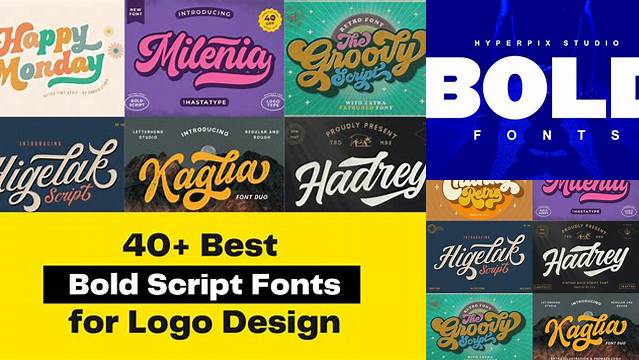
Bold Fonts: Best Choices For Logo Design
Choosing the right font is crucial for creating a logo that stands out and effectively represents your brand. When it comes to making a strong visual impact, bold fonts are often the go-to choice. They exude confidence, grab attention, and ensure readability across various platforms. But with so many bold fonts out there, how do you pick the best one for your logo? Well, let's dive into the world of bold fonts and explore some top contenders for logo design.
1. Understanding the Power of Bold Fonts in Logo Design
Hey guys! Have you ever wondered why some logos just pop while others fade into the background? A big part of it comes down to font choice, especially when we're talking about bold fonts. Bold fonts aren't just about making text thicker; they're about making a statement. They communicate strength, confidence, and clarity, which are all essential qualities for a successful logo. Think about some of the most iconic logos out there β many of them utilize bold fonts to create a lasting impression. From tech giants to established corporations, bold fonts have proven their effectiveness in capturing attention and conveying brand identity. So, before we jump into specific fonts, let's understand why bold fonts are so powerful in the world of logo design. A well-chosen bold font can instantly elevate your logo, making it more memorable and impactful. It's not just about the thickness of the lines; it's about the overall presence and authority that a bold font brings to your visual identity. A bold font ensures that your logo remains legible and noticeable, whether itβs displayed on a large billboard or a small mobile screen. This is crucial for brand recognition and consistency across all platforms. Moreover, bold fonts often convey a sense of stability and reliability, which can be particularly important for businesses looking to build trust with their audience. The visual weight of a bold font anchors the logo, giving it a solid and dependable feel. In essence, bold fonts are a powerful tool in your design arsenal, capable of transforming a simple wordmark into a compelling brand symbol. So, when you're brainstorming logo ideas, don't underestimate the impact of a bold font. It might just be the secret ingredient to making your logo truly stand out.
2. Top Bold Sans-Serif Fonts for Modern Logos
When it comes to modern logos, sans-serif bold fonts are a classic choice. They're clean, contemporary, and incredibly versatile. These fonts lack the small decorative strokes (serifs) found in traditional fonts, giving them a minimalist and streamlined appearance. For brands aiming to project a modern and approachable image, sans-serif bold fonts are often the best bet. But with so many options available, how do you narrow down the best sans-serif bold fonts for your logo? Let's explore some top contenders. First up, we have Helvetica. A timeless classic, Helvetica is renowned for its simplicity and readability. Its bold variations offer a strong and confident look, making it a popular choice for tech companies and brands seeking a clean aesthetic. Think about the logos of major corporations β chances are, Helvetica or a similar sans-serif is in the mix. Next, consider Futura. With its geometric shapes and elegant lines, Futura exudes a sense of sophistication and modernity. Its bold versions are particularly striking, making it ideal for brands that want to convey innovation and forward-thinking. Futura's clean lines and balanced proportions make it highly legible, even at smaller sizes, which is crucial for logo design. Another strong contender is Montserrat. This font has gained popularity in recent years for its versatility and clean design. Montserrat Bold offers a robust and impactful presence, making it a great option for logos that need to stand out. It's particularly well-suited for brands that want to project a contemporary yet approachable image. Then there's Open Sans, a font designed with readability in mind. Its bold version is both clear and impactful, making it a solid choice for logos that need to be easily recognizable across various platforms. Open Sans is a favorite among designers for its versatility and its ability to work well in both print and digital formats. Finally, don't overlook Roboto. This font family, developed by Google, offers a range of weights, including a bold version that's perfect for logo design. Roboto Bold is clean, modern, and highly legible, making it a reliable choice for a variety of brands. Its open forms and friendly appearance make it particularly well-suited for logos that aim to convey trustworthiness and accessibility. In conclusion, sans-serif bold fonts are a staple in modern logo design. Their clean lines and contemporary feel make them a versatile choice for a wide range of brands. By considering fonts like Helvetica, Futura, Montserrat, Open Sans, and Roboto, you can find the best sans-serif bold font to elevate your logo and make a lasting impression.
3. Exploring Bold Serif Fonts for Classic Logo Styles
For logos that aim to evoke a sense of tradition, elegance, and authority, bold serif fonts are an excellent choice. Unlike their sans-serif counterparts, serif fonts feature small decorative strokes (serifs) at the ends of the letterforms. These serifs add a touch of formality and sophistication, making bold serif fonts well-suited for brands that want to convey a sense of history, trustworthiness, and refinement. Think about luxury brands, law firms, or established institutions β many of them opt for bold serif fonts in their logos. But which bold serif fonts are the best for creating a classic and timeless logo? Let's explore some top options. One of the most iconic bold serif fonts is Times New Roman. While it might be a default font in many word processors, its bold version remains a strong contender for logo design, particularly for brands that want to project a sense of authority and tradition. Its classic letterforms and high readability make it a reliable choice for a wide range of applications. Next, consider Georgia. This font was specifically designed for on-screen readability, making its bold version an excellent option for logos that need to look clear and impactful in digital formats. Georgia Bold has a slightly warmer and more approachable feel than Times New Roman, making it a versatile choice for brands that want to balance tradition with modernity. Another strong contender is Baskerville. This font is known for its elegant and refined letterforms, and its bold version exudes a sense of sophistication and class. Baskerville Bold is particularly well-suited for logos in the fashion, beauty, or publishing industries, where a touch of elegance is essential. Then there's Garamond, a font that has stood the test of time. Its bold version is both classic and readable, making it a popular choice for logos that need to convey a sense of history and trustworthiness. Garamond Bold is often used by brands in the financial, legal, or educational sectors. Finally, don't overlook Playfair Display. This font is a more contemporary take on the classic serif, and its bold version offers a striking and stylish appearance. Playfair Display Bold is well-suited for logos that want to blend traditional elegance with a modern edge. In conclusion, bold serif fonts are a powerful tool for creating logos that exude classic style and sophistication. By considering fonts like Times New Roman, Georgia, Baskerville, Garamond, and Playfair Display, you can find the best bold serif font to give your logo a timeless and elegant appeal.
4. Bold Script Fonts: Adding Elegance to Your Logo
If you're aiming for a logo that radiates elegance, personality, and a touch of artistry, bold script fonts might be just what you need. Script fonts mimic the fluid strokes of handwriting, adding a human touch and a sense of craftsmanship to your brand identity. While script fonts can be more challenging to use in logos than sans-serif or serif fonts (due to readability concerns), a well-chosen bold script font can create a truly memorable and distinctive logo. Think about brands in the beauty, fashion, or artisanal food industries β they often use script fonts to convey a sense of luxury and personal attention. But which bold script fonts are the best for logo design? Let's explore some top options, keeping in mind the importance of readability and balance. One of the most popular bold script fonts is Great Vibes. This font is known for its elegant loops and flowing lines, making it a favorite for wedding invitations and branding materials. Its bold version offers a strong yet graceful presence, perfect for logos that want to convey sophistication and charm. However, it's crucial to use Great Vibes sparingly and ensure that it remains legible, especially in smaller sizes. Next, consider Pacifico. This font has a more casual and friendly feel than Great Vibes, making it a great option for brands that want to project a relaxed and approachable image. Pacifico's bold strokes give it a lively and energetic appearance, ideal for logos in the food, beverage, or creative industries. Another strong contender is Lobster. This font is known for its bold, retro-inspired style, and its bold version is particularly striking. Lobster Bold has a distinctive personality, making it a good choice for logos that want to stand out and make a statement. However, it's important to use Lobster carefully, as its unique style might not be suitable for all brands. Then there's Brush Script MT, a classic script font that has been used in logos for decades. Its bold version has a hand-drawn feel, adding a touch of authenticity and warmth to any logo. Brush Script MT Bold is well-suited for brands in the arts, crafts, or food industries, where a personal touch is valued. Finally, don't overlook Kaushan Script. This font is a more modern and edgy take on the script font, and its bold version offers a bold and dynamic appearance. Kaushan Script Bold is a good choice for logos that want to convey a sense of creativity and innovation. In conclusion, bold script fonts can add a touch of elegance and personality to your logo, but they require careful consideration. By exploring fonts like Great Vibes, Pacifico, Lobster, Brush Script MT, and Kaushan Script, you can find the best bold script font to create a logo that truly stands out.
5. Choosing Bold Display Fonts for Unique Logos
If you're looking to create a logo that's truly one-of-a-kind and memorable, bold display fonts are your secret weapon. Display fonts are designed to grab attention and make a statement, often featuring unique and unconventional letterforms. While they might not be suitable for large blocks of text, bold display fonts can be incredibly effective in logos, adding personality and visual flair. These fonts come in a wide range of styles, from vintage-inspired to futuristic, allowing you to find the perfect match for your brand's identity. But with so many options available, how do you choose the best bold display font for your logo? Let's explore some top contenders, focusing on fonts that offer both boldness and distinctiveness. One popular choice is Bebas Neue. This font is a sans-serif display font known for its tall and narrow letterforms, giving it a modern and streamlined appearance. Bebas Neue Bold is particularly striking, making it a great option for logos that want to convey a sense of style and sophistication. However, it's important to ensure that Bebas Neue remains legible, especially in smaller sizes. Next, consider Oswald. This font is a sans-serif display font that blends classic proportions with a contemporary feel. Oswald Bold has a strong and confident presence, making it a good choice for logos that want to project authority and trustworthiness. Its versatile design makes it suitable for a variety of industries, from tech to finance. Another strong contender is ChunkFive. This font is a slab-serif display font known for its bold, blocky letterforms. ChunkFive is perfect for logos that want to make a bold statement and grab attention. Its vintage-inspired style makes it particularly well-suited for brands in the food, beverage, or entertainment industries. Then there's Luckiest Guy, a handwritten-style display font that exudes fun and personality. Luckiest Guy is a great choice for logos that want to convey a sense of playfulness and creativity. Its bold, whimsical letterforms make it particularly well-suited for brands targeting a younger audience. Finally, don't overlook Raleway. This font is a sans-serif display font that offers a range of weights, including a striking bold version. Raleway Bold has an elegant and sophisticated feel, making it a good choice for logos that want to convey a sense of luxury and refinement. In conclusion, bold display fonts are a fantastic tool for creating logos that are unique and memorable. By exploring fonts like Bebas Neue, Oswald, ChunkFive, Luckiest Guy, and Raleway, you can find the best bold display font to give your logo a distinctive and eye-catching appearance. Remember to always prioritize readability and ensure that the chosen font aligns with your brand's overall identity and message.
6. Matching Bold Fonts with Your Brand Identity
Alright, guys, let's talk about something super crucial: making sure your bold font actually matches your brand! It's not just about picking a font you think looks cool; it's about finding one that speaks your brand's language. Think of your logo as the face of your company β you want it to make the right first impression, right? A mismatched font can send the wrong message, confusing your audience and diluting your brand identity. So, how do you ensure your bold font is a perfect fit? First, let's consider your brand's personality. Are you playful and quirky, or serious and sophisticated? A bold, hand-drawn font might be perfect for a children's clothing brand, but it would likely feel out of place for a financial institution. Similarly, a sleek, modern sans-serif font would be ideal for a tech startup, but it might not resonate with a traditional law firm. Next, think about your target audience. Who are you trying to reach? A bold font that appeals to millennials might not resonate with an older demographic, and vice versa. Understanding your audience's preferences and expectations is key to choosing a font that will grab their attention and make a positive connection. Consider the industry you're in. Different industries often have different visual conventions. For example, luxury brands tend to favor elegant serif fonts, while tech companies often opt for clean sans-serif fonts. While it's okay to break the mold and go against the grain, it's important to be aware of these conventions and make a conscious decision about whether or not to follow them. Think about the message you want to convey. What are the core values and principles of your brand? Do you want to communicate trustworthiness, innovation, creativity, or something else entirely? Your font should reflect these values and help you tell your brand's story. A bold, sturdy font can convey strength and reliability, while a more playful font can suggest creativity and fun. Don't forget about readability. While a bold font is designed to grab attention, it also needs to be legible, especially in smaller sizes. A font that looks great on a billboard might become a blurry mess on a business card. Test your font in various sizes and contexts to ensure it remains clear and easy to read. And finally, consider the long-term implications. Your logo is likely to be around for years to come, so it's important to choose a font that will stand the test of time. Trendy fonts might look cool now, but they can quickly become dated. Opt for a font that is classic, versatile, and reflective of your brand's enduring values. In conclusion, matching your bold font with your brand identity is a crucial step in creating a successful logo. By considering your brand's personality, target audience, industry, message, and long-term goals, you can find a font that truly represents your brand and helps you make a lasting impression. So, take your time, explore your options, and choose wisely β your brand's future might just depend on it!
7. Ensuring Readability with Bold Fonts
Okay, guys, let's get real for a second: a bold font might look amazing, but if nobody can actually read it, what's the point? Readability is absolutely crucial when it comes to logo design, especially when you're working with bold fonts. After all, your logo is meant to be seen and understood, not deciphered like some ancient hieroglyphic. A bold font that's too dense or cluttered can become a visual nightmare, making it difficult for people to recognize your brand and remember your message. So, how do you ensure readability when using bold fonts in your logo? First and foremost, choose a font that's inherently legible. Some fonts, even in their bold versions, are simply more difficult to read than others. Look for fonts with clear, open letterforms and sufficient spacing between characters. Avoid fonts that are overly ornate, condensed, or stylized, as these can often compromise readability. Pay close attention to the letter spacing and kerning. Letter spacing refers to the overall space between letters in a word, while kerning is the adjustment of space between specific pairs of letters. Too little space can make the letters run together, while too much space can make the word look disjointed. A bold font with properly adjusted letter spacing and kerning will be much easier to read. Consider the contrast between the font and the background. A bold font in a light color might look great on a dark background, but it could be difficult to read on a light background. Similarly, a bold font in a dark color might disappear on a dark background. Make sure there's sufficient contrast between your font and the background to ensure readability. Think about the size and scale of your logo. A bold font that looks clear and legible in a large format might become a blurry mess when reduced to a smaller size, such as on a business card or mobile screen. Test your logo in various sizes to ensure that the font remains readable across different applications. Avoid using too many bold fonts in your logo. While a single bold font can make a strong statement, using multiple bold fonts can create visual clutter and make your logo look overwhelming. Stick to one bold font for the main elements of your logo, and use lighter weights for any supporting text. Consider the overall complexity of your logo. If your logo already has a lot of visual elements, such as icons, illustrations, or graphic shapes, a simple and legible bold font is often the best choice. Avoid using a font that is too busy or distracting, as this can compete with the other elements of your logo and make it harder to read. And finally, always get feedback from others. Ask friends, colleagues, or potential customers to take a look at your logo and tell you what they think. Do they find the font easy to read? Does it convey the right message? Fresh eyes can often spot readability issues that you might have overlooked. In conclusion, ensuring readability is essential when using bold fonts in your logo. By choosing a legible font, paying attention to letter spacing and kerning, considering contrast and scale, avoiding overuse of bold fonts, and getting feedback from others, you can create a logo that is both visually striking and easy to read. So, don't let a beautiful font compromise your message β prioritize readability and make sure your logo speaks clearly to your audience.
8. Pairing Bold Fonts with Other Fonts in Your Logo
Alright, let's talk font pairings, guys! You've picked an awesome bold font for your logo, but now what? Using just one font can sometimes feel a little...flat. That's where pairing your bold font with another font comes in! When done right, this can add depth, visual interest, and a whole lotta personality to your logo. But, like any design decision, it's all about striking the right balance. You don't want your fonts clashing like cymbals in a hurricane, right? So, how do you nail that perfect font pairing with your bold star of the show? Let's break it down! First off, think about contrast. The goal here is to create visual harmony through difference. If your bold font is a strong, sturdy serif, consider pairing it with a clean, simple sans-serif. This contrast in style creates a dynamic and eye-catching effect. Conversely, if your bold font is a modern, geometric sans-serif, a softer, more classic serif can be a beautiful complement. Think of it like pairing a power suit with a delicate blouse β it's all about the interplay! Next, consider hierarchy. In most logos, there's a primary element (usually the brand name) and secondary elements (like a tagline or descriptor). Your bold font will likely take center stage for the brand name, and that's where your secondary font comes in to support the message without stealing the spotlight. A lighter weight or smaller size of the secondary font can help create this visual hierarchy, guiding the viewer's eye to the most important information first. Now, let's talk personality! Your font pairing should reflect your brand's unique vibe. If your bold font is playful and quirky, pairing it with a super serious, corporate font might feel...off. Choose a secondary font that shares a similar tone and reinforces the overall message you're trying to send. For example, a bold script font paired with a clean, handwritten-style sans-serif can evoke a sense of warmth and authenticity. Don't be afraid to experiment! The best way to find the perfect font pairing is to try out different combinations and see what resonates. There are tons of online tools and resources that can help you explore font pairings, or you can simply start by browsing examples of logos you admire and noting the font combinations they use. And here's a pro tip: limit yourself to two fonts max in your logo. More than that can start to feel cluttered and overwhelming. A bold font for the main element and a complementary font for secondary text is usually the sweet spot for creating a balanced and impactful logo. Finally, remember the golden rule: readability! No matter how visually stunning your font pairing is, it's all for naught if people can't actually read it. Make sure both fonts are clear and legible in various sizes and applications. A beautiful font pairing that sacrifices readability is a major design faux pas! In conclusion, pairing your bold font with another font is a fantastic way to add depth and personality to your logo. By considering contrast, hierarchy, personality, and readability, you can create a font combination that truly elevates your brand identity. So, go forth and experiment β the perfect font pairing is out there, just waiting to be discovered!
9. Bold Fonts and Color Psychology in Logo Design
Okay, guys, let's get a little psychological! We all know that bold fonts pack a visual punch, but did you know that color plays a huge role in how those fonts are perceived? It's true! Color psychology is a powerful tool in logo design, and when you combine it with the impact of a bold font, you're talking about some serious brand messaging magic. Colors evoke emotions, associations, and even cultural meanings. Think about it: red often signifies passion and excitement, while blue tends to convey trust and stability. Now, imagine pairing those colors with different bold fonts β the message can shift dramatically! So, how do you harness the power of color psychology to make your bold font logo truly sing? Let's dive in! First, consider the emotions you want to evoke. What feeling do you want people to associate with your brand? If you're aiming for energy and innovation, a bold sans-serif font in a vibrant color like orange or yellow might be a winning combination. On the other hand, if you're striving for sophistication and elegance, a bold serif font in a classic color like navy blue or deep gray could be the best choice. Next, think about your target audience. Different demographics may respond differently to certain colors. For example, younger audiences might be drawn to brighter, more playful colors, while older audiences might prefer more muted and traditional hues. Understanding your audience's color preferences is crucial for creating a logo that resonates with them. Consider your industry and your competitors. What colors are commonly used in your industry? Are there any colors you should avoid because they're heavily associated with your competitors? Sometimes, going against the grain can help you stand out, but it's important to be aware of the existing landscape before making a decision. Now, let's talk about specific color pairings with bold fonts. A bold font in black can convey power, sophistication, and timelessness. It's a classic choice that works well for a wide range of brands, especially when paired with a clean and minimalist design. A bold font in white can create a sense of purity, simplicity, and modernity. It's a great option for brands that want to project a clean and uncluttered image. A bold font in red can grab attention and create a sense of urgency or excitement. It's often used by brands in the food, entertainment, or sports industries. A bold font in blue can convey trust, reliability, and stability. It's a popular choice for brands in the finance, technology, or healthcare sectors. A bold font in green can evoke feelings of nature, growth, and sustainability. It's often used by brands in the environmental, health, or food industries. A bold font in yellow can create a sense of optimism, energy, and happiness. It's a good option for brands that want to project a cheerful and approachable image. Don't forget about color contrast! The contrast between your font color and your background color is essential for readability. A bold font in a light color will stand out beautifully on a dark background, and vice versa. Avoid using colors that are too similar, as this can make your logo difficult to read. In conclusion, color psychology is a powerful tool that can enhance the impact of your bold font logo. By considering the emotions you want to evoke, your target audience, your industry, and the specific color pairings, you can create a logo that truly resonates with your audience and communicates your brand's message effectively. So, don't underestimate the power of color β it's the secret ingredient that can take your bold font logo from good to great!
10. Bold Fonts and White Space: Creating Visual Balance
Alright, let's talk about white space, guys! It might sound like a fancy design term, but trust me, it's your secret weapon for making your bold font logo truly shine. White space, also known as negative space, is simply the empty area around and between the elements of your logo. It's the breathing room that allows your bold font to stand out and prevents your design from feeling cluttered and overwhelming. Think of it like this: a bold font is like a powerful voice, and white space is the silence that makes that voice even more impactful. Without enough white space, your bold font can get lost in the noise, making your logo look messy and confusing. So, how do you use white space effectively to create visual balance in your bold font logo? Let's break it down! First, understand the purpose of white space. It's not just about filling empty areas; it's about creating visual hierarchy, improving readability, and adding a touch of elegance to your design. White space helps to guide the viewer's eye to the most important elements of your logo, making your message clearer and more memorable. Think about the overall composition of your logo. How are the elements arranged in relation to each other? Is there enough space around your bold font to allow it to breathe? A good rule of thumb is to leave at least as much white space around your font as the height of the letters themselves. This will give your font plenty of room to stand out and prevent it from feeling cramped. Pay attention to the space between letters and words. Just like with color, contrast is key! Too little space can make your bold font look like a solid block, while too much space can make it look disjointed. Experiment with different letter spacing and kerning (the space between specific pairs of letters) to find the perfect balance. Consider the size and scale of your logo. A logo that looks great on a large banner might feel overwhelming on a business card if there isn't enough white space. Make sure your logo is scalable and that the white space remains effective at different sizes. Don't be afraid to simplify your design. Sometimes, the best way to create more white space is to remove unnecessary elements. A clean and minimalist design with plenty of white space can be much more impactful than a cluttered and busy one. Embrace the power of implied white space. White space doesn't always have to be a blank canvas. You can also use implied white space by incorporating shapes and forms that create negative space around your bold font. This can add a touch of creativity and visual interest to your logo. Get feedback from others. Ask friends, colleagues, or potential customers to take a look at your logo and tell you what they think. Does it feel balanced and easy to read? Is there enough white space to allow the bold font to stand out? Fresh eyes can often spot areas where white space can be improved. In conclusion, white space is a crucial element of logo design that can significantly enhance the impact of your bold font. By understanding its purpose, paying attention to composition, letter spacing, and scale, simplifying your design, embracing implied white space, and getting feedback from others, you can create a logo that is both visually striking and balanced. So, don't underestimate the power of white space β it's the silent hero that makes your bold font truly shine!
11. Bold Fonts in Responsive Logo Design
Okay, guys, let's talk about the digital world! Your logo isn't just living on business cards and letterheads anymore β it's gotta look amazing on everything from giant desktop screens to tiny smartphone displays. That's where responsive logo design comes in, and guess what? Bold fonts play a major role in making your logo shine across all those platforms. Responsive design is all about creating a logo that adapts seamlessly to different screen sizes and resolutions. This means your bold font needs to be legible and impactful whether it's viewed on a large monitor or a small mobile device. A font that looks great in a large format can become a blurry mess when scaled down, so it's crucial to choose a bold font that maintains its clarity and readability at all sizes. So, how do you ensure your bold font is responsive and looks amazing on every screen? Let's dive in! First, choose a bold font that's inherently scalable. Some fonts are simply better suited for responsive design than others. Look for fonts with clean, simple letterforms and open counters (the enclosed spaces within letters like